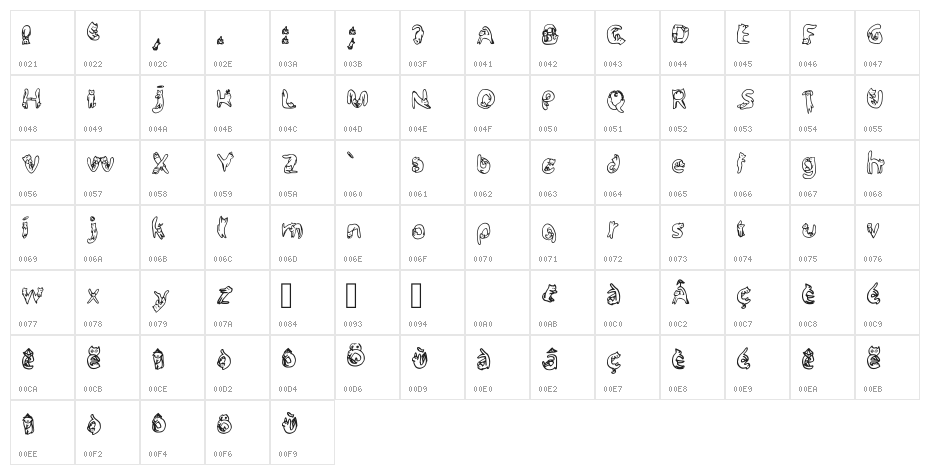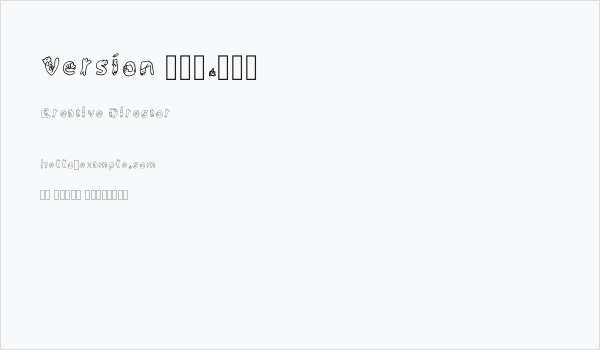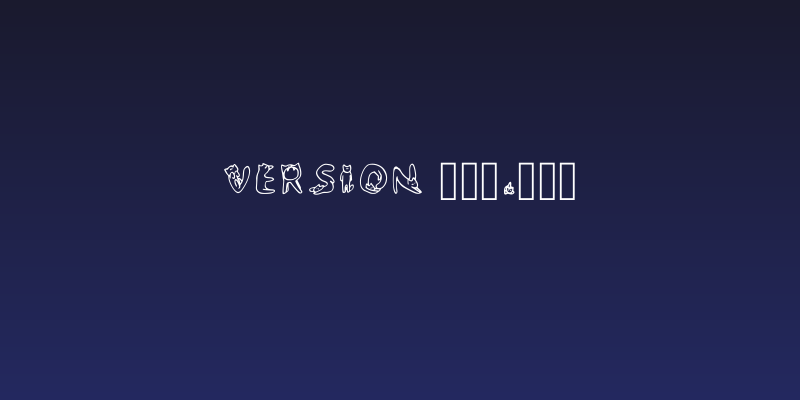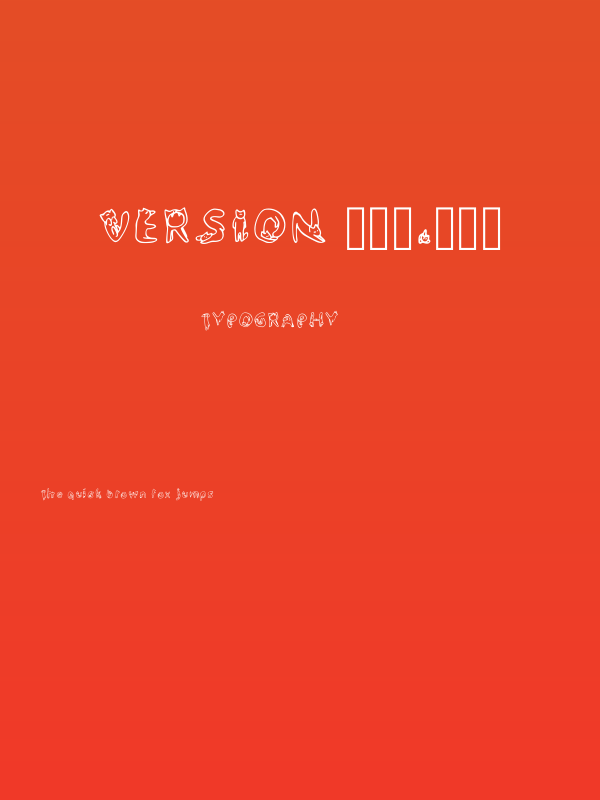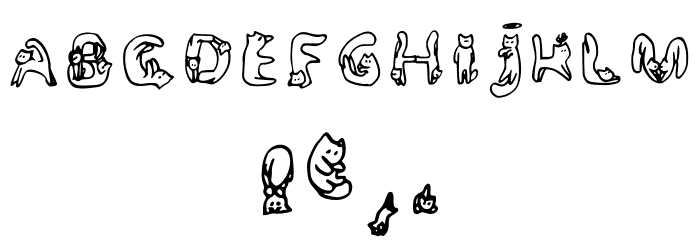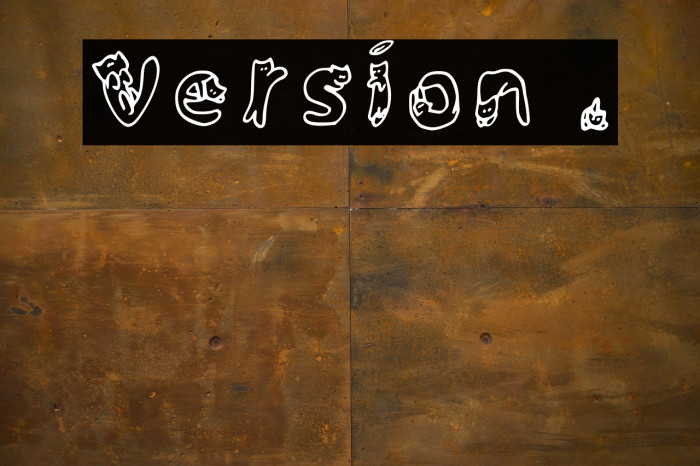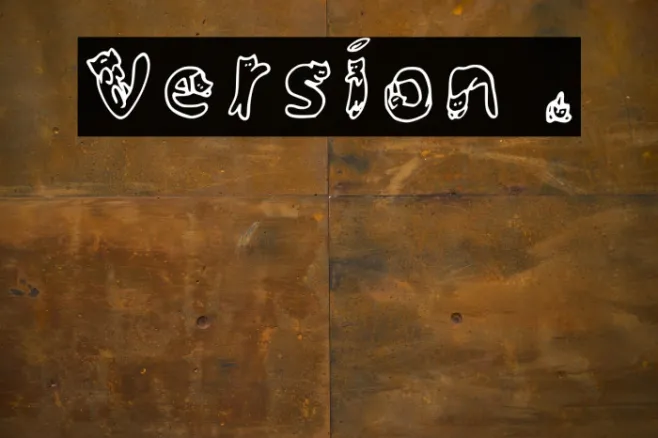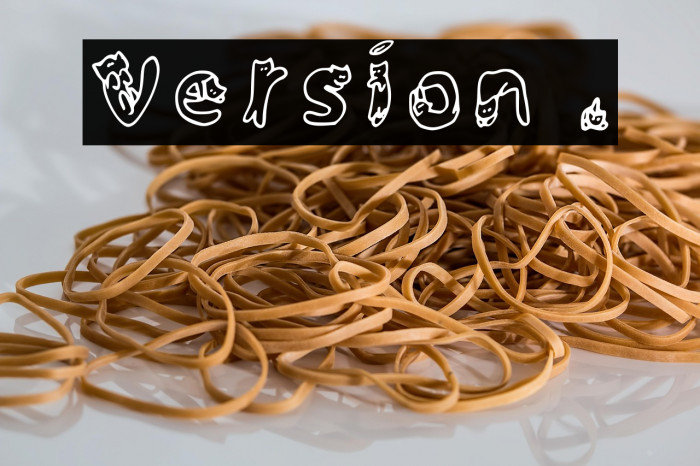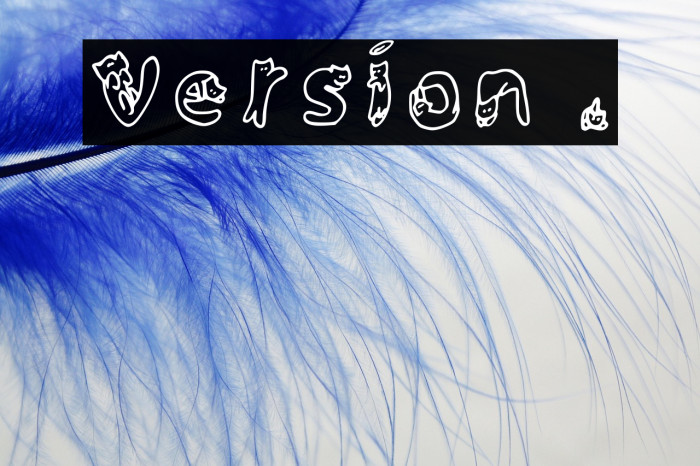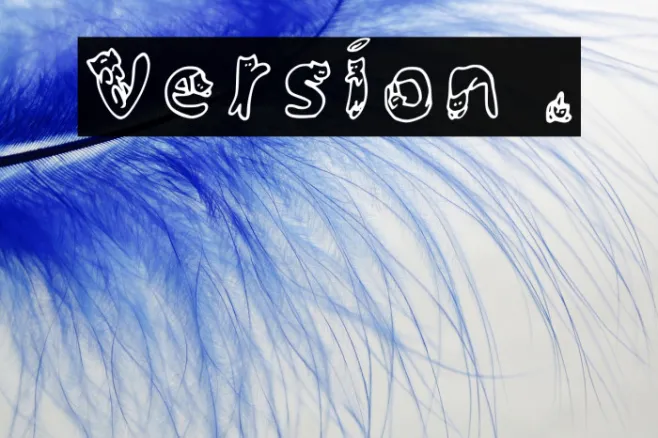
Version 001.006 Font
Version 001.006 Description
This playful and whimsical font features letters formed by creatively arranged cat illustrations. Each character is uniquely designed with cats in various poses, adding a sense of fun and charm. The font is highly decorative, making it ideal for projects that require a lighthearted and engaging aesthetic. The intricate details of the cat designs within each letter make it a standout choice for creative and artistic endeavors. Its unique style captures attention and brings a sense of joy and personality to any text.
| Use Case | Logos, Posters, Creative Projects |
| Proposed Projects | Ideal for children's books, pet-related branding, playful posters, and creative invitations. |